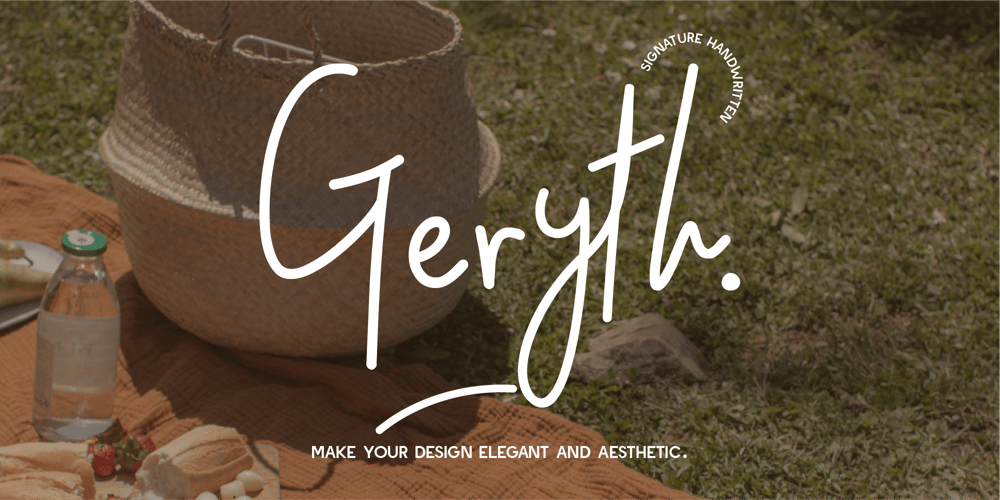
Geryth
Geryth font
Geryth Font Family was designed by Gilang Mei Nugraha, Frederik Aristaputra and published by Creatifont Studio. Geryth contains 3 styles and family package options. Geryth is a signature-style handwritten font that embodies a casual and effortless flow. The natural freehand strokes create a sense of authenticity, making it ideal for personal branding, invitations, or any design that requires a touch of elegance and warmth. With three versatile styles, Geryth adapts seamlessly to various design contexts, adding a sophisticated, yet approachable feel. Its smooth curves and organic shapes give it a unique charm, perfect for enhancing modern, aesthetic-driven projects with a refined yet friendly look.A SUMMARY OF WHAT’S INCLUDED: Standard Character A-Z, a-z, 0-9, Punctuation & symbols Regular, Italic and Bold Style Multilingual Support Include Ligatures and Alternates Works on PC & Mac Simple installation Accessible in Adobe Creative Suite (Ai, Ps, Id, etc.) even work on Microsoft Word. PUA Encoded Characters – Fully accessible without additional design software. 🌟If you come across any issues or notice anything we might have overlooked while using this product, please feel free to reach out to us. We greatly value your feedback as it helps us enhance and refine our products. Thank you!